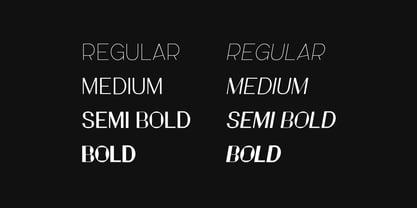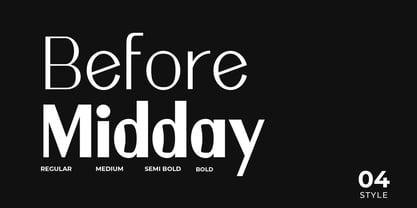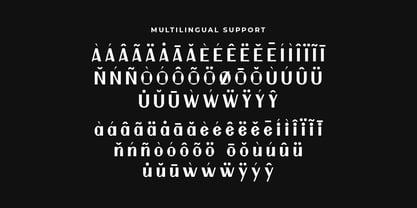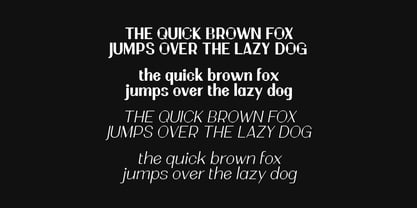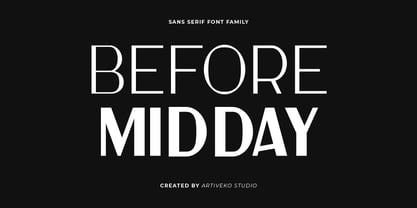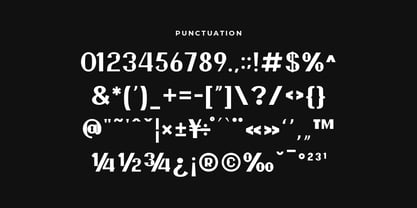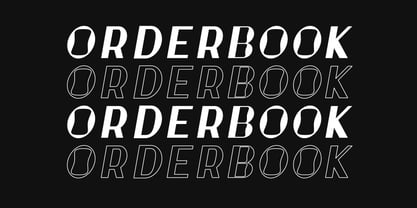
Before Midday
by Artiveko
The Before Midday Font Family was designed by Iwan Alwan and published by Artiveko. Before Midday contains 8 styles and family package options.
Before Midday is a refined sans serif font family designed to deliver clarity, calmness, and modern versatility. With its balanced proportions, smooth curves, and gentle stroke contrast, Before Midday offers a clean and friendly appearance that feels professional yet approachable. Perfect for branding systems, editorial design, websites, mobile apps, presentations, corporate identity, and user interfaces, Before Midday works beautifully across a wide range of sizes and media. Its multi-weight family structure allows designers to build consistent and flexible typography hierarchies — from subtle body text to confident headlines. The font family includes multiple weights and styles, along with uppercase and lowercase letters, numerals, punctuation, multilingual support, and stylistic alternates for extended creative control. Create harmonious and modern typographic systems with Before Midday — a sans serif font family crafted for clean, calm, and contemporary design.
Designers: Iwan Alwan
Publisher: Artiveko
Foundry: Artiveko
Design Owner: Artiveko